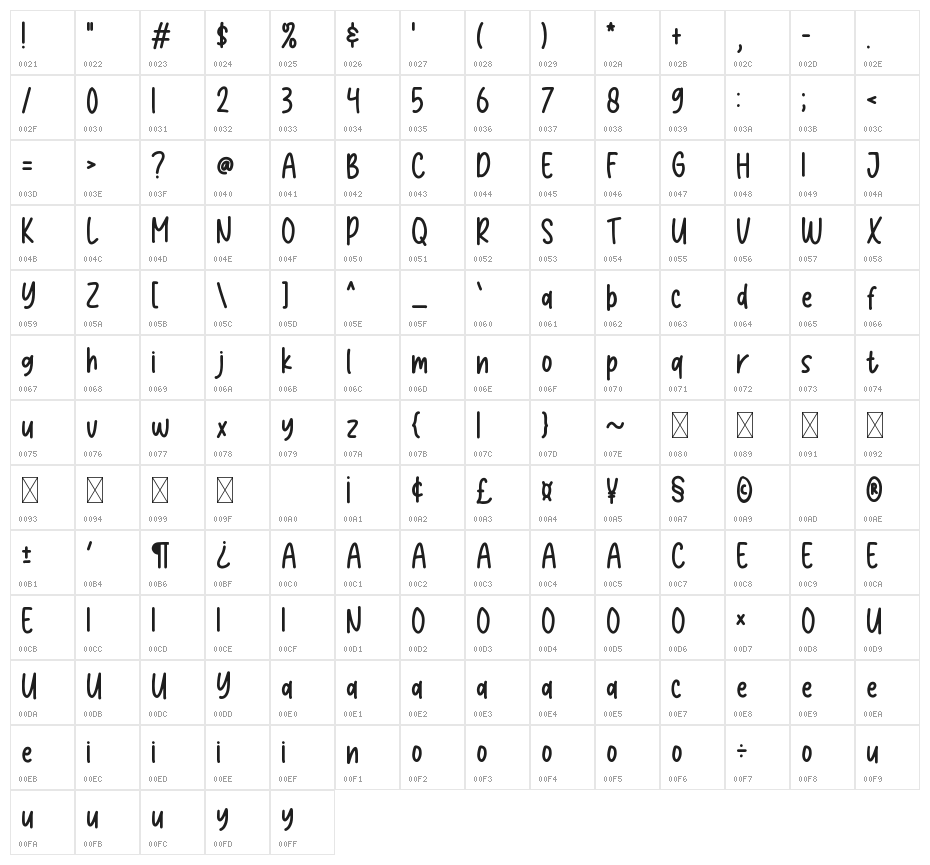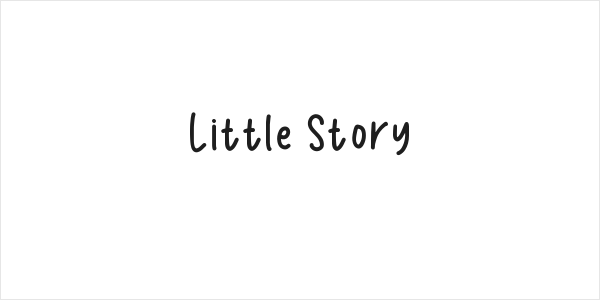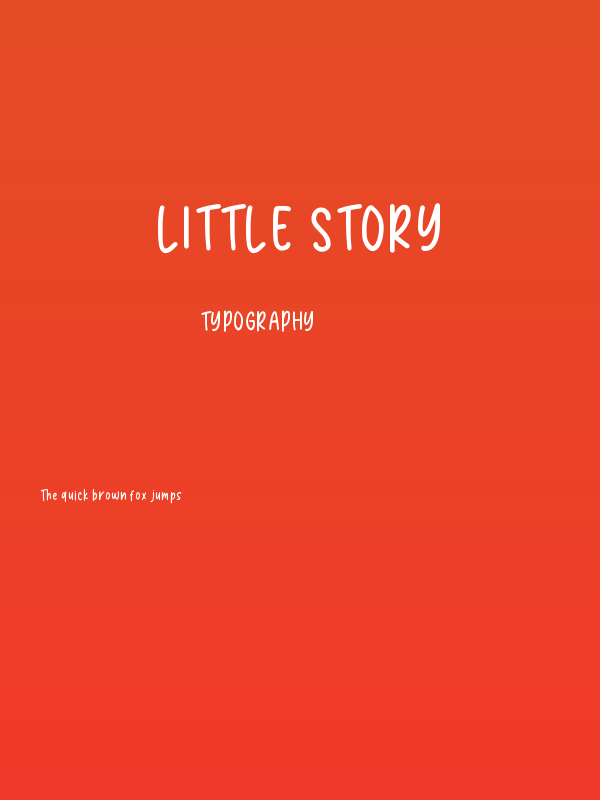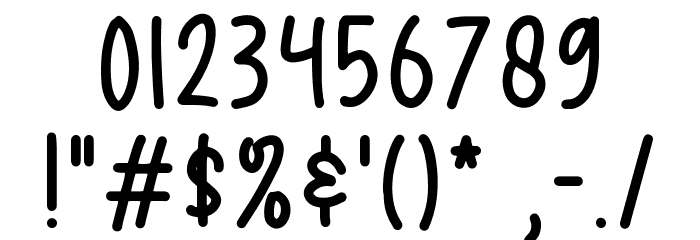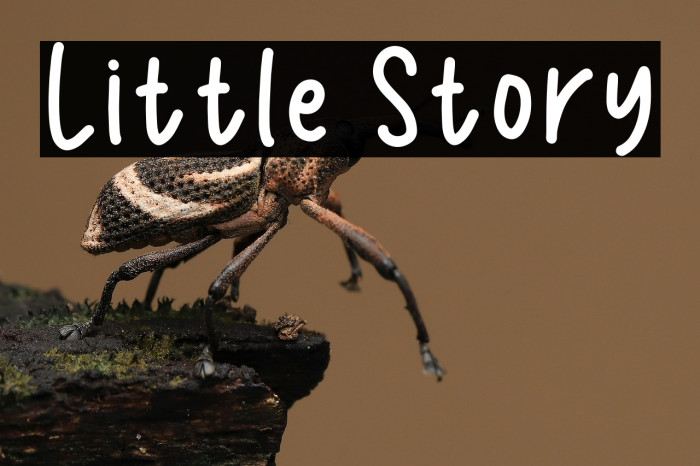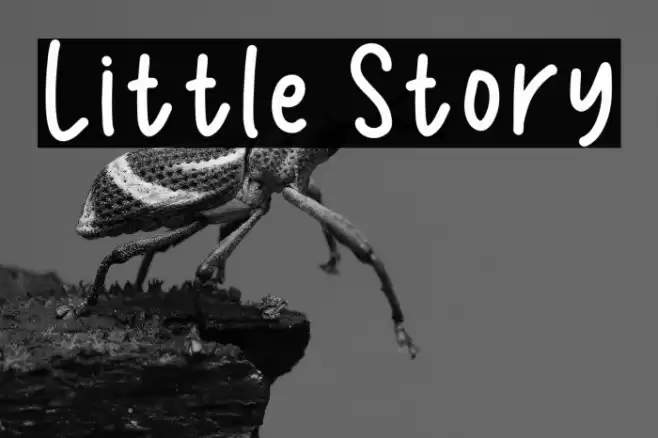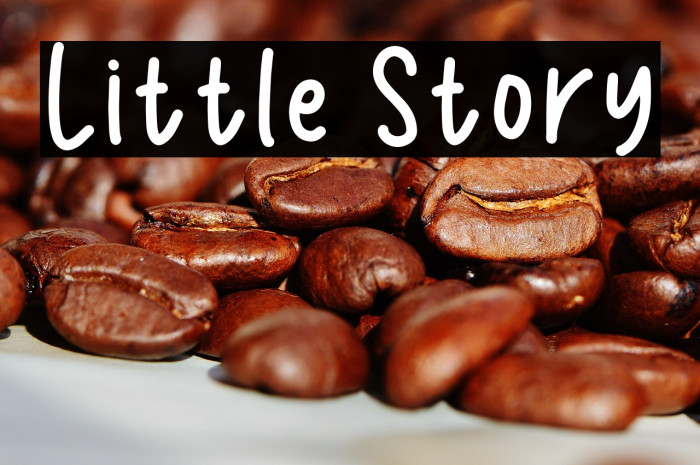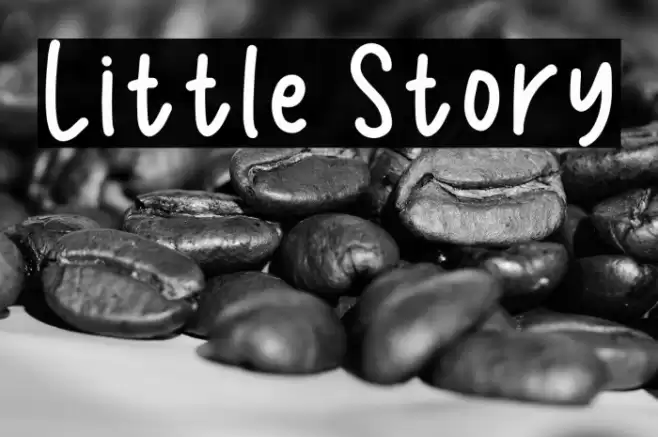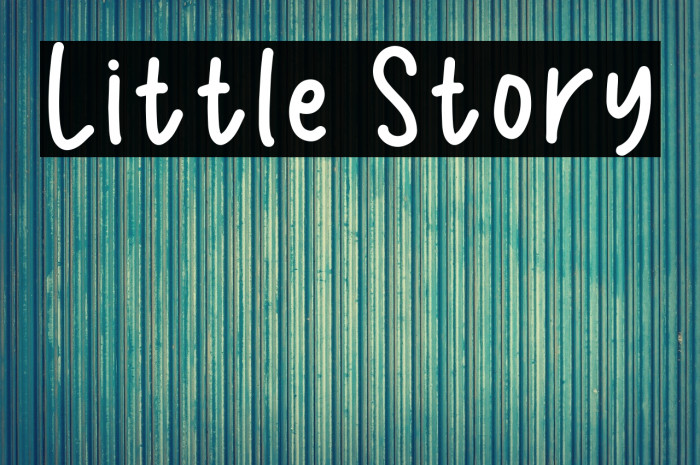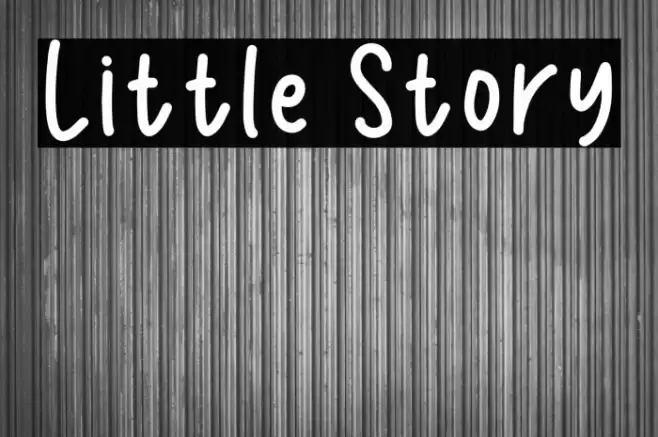
Little Story Font
Little Story Description
This playful and whimsical font features a handwritten style with a casual and friendly appearance. The letters are slightly rounded and have a consistent stroke width, giving it a smooth and approachable look. The uppercase and lowercase characters maintain a uniform height, while the numerals and special characters blend seamlessly with the overall design. The font's informal nature makes it ideal for projects that require a personal touch, such as children's books, greeting cards, and creative branding. Its legibility and charm make it suitable for both digital and print media.
| Proposed Projects | Children's books, greeting cards, creative branding, digital and print media. |